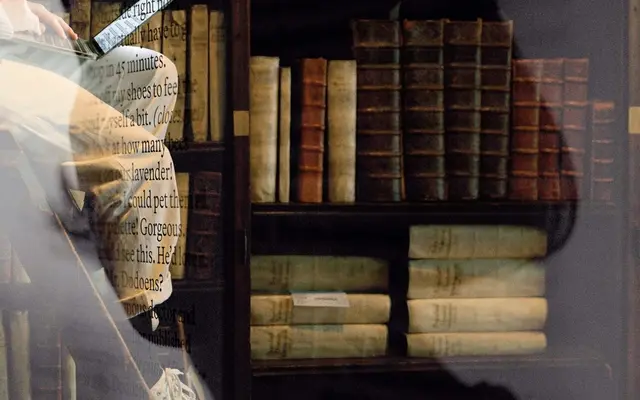
Martina Plantijn
Klim Type Foundry · Kris Sowersby · 2023
Martina Plantijn specimen from Klim Type Foundry
A reworked Plantin tuned for present-day editorial work, with five weights of roman and italic and decisive digital corrections.
An old-style serif by Kris Sowersby that returns to Frank Hinman Pierpont's Plantin and the 16th century material Pierpont studied at the Plantin-Moretus Museum in Antwerp. Five weights run from Light to Black, each with a paired italic, and the drawing makes decisive digital updates rather than a faithful revival. Reads warm at body size and steady at display, so it sits naturally in books, magazines and editorial brands that want Plantin's character without its rougher legacy artefacts.
Klim classifies it as Serif Oldstyle; a better Plantin, informed by Frank Hinman Pierpont's typeface and Pierpont's research of 16th century type at the Plantin-Moretus Museum in Antwerp, with decisive digital updates across roman and italic.